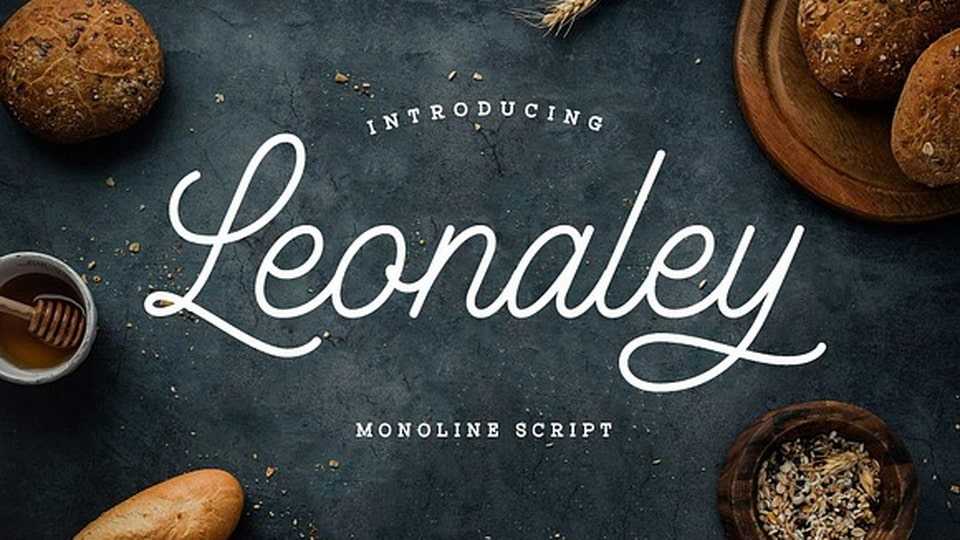
Download Leonaley font, a minimalist monoline script. Specifically designed with thin strokes and rich swirls to accentuate the dramatic side of this font, reaching a wider range of design styles.